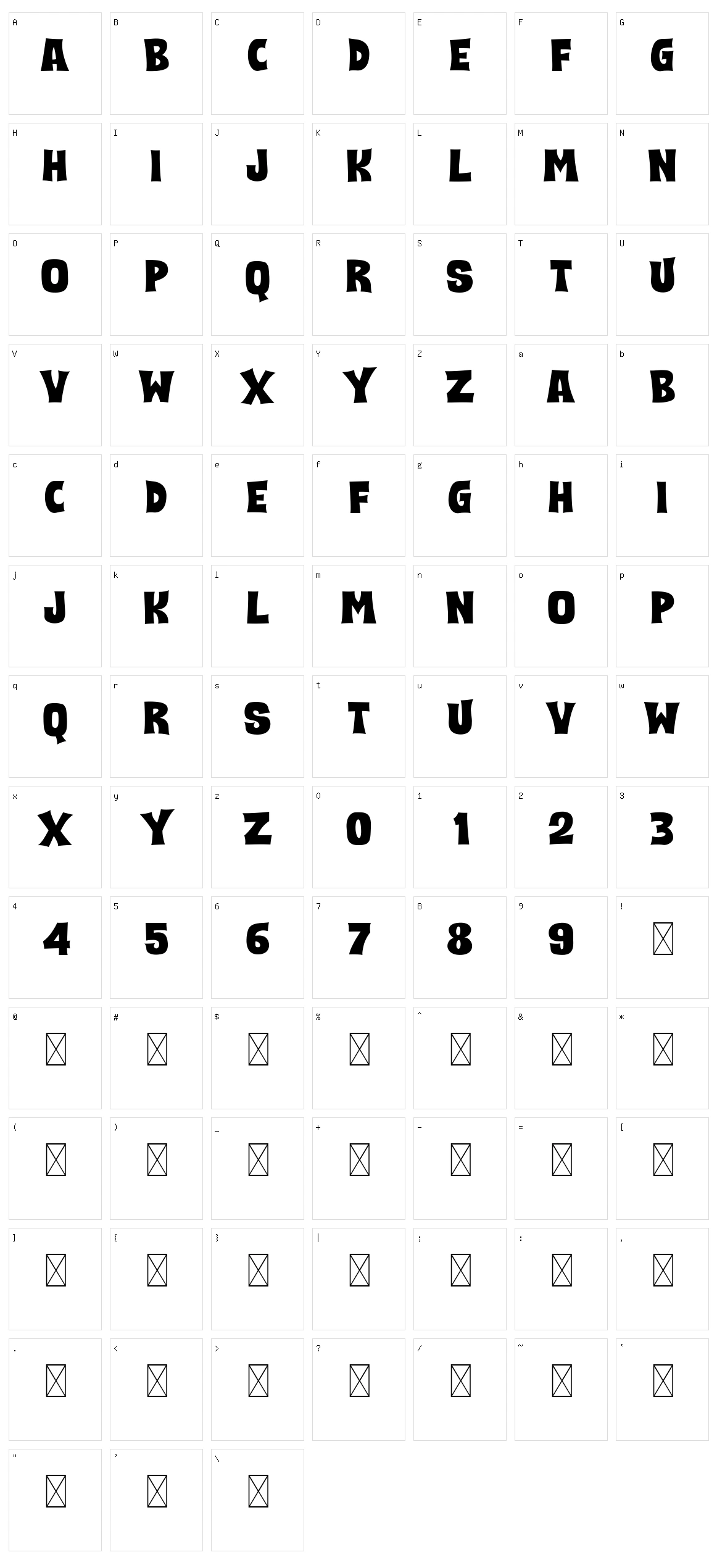
The free font Scary And Spicy is carefully designed by Tokokoo Studio, showcasing a thoughtful balance of creativity and usability and falls under the Cartoon font style. When you download the ZIP file, it contains only 11.52 KB of font files, making it lightweight and quick to download. Please review the license details below to understand permitted usage and distribution rights. If license information is not available, we recommend using this font for personal projects only or contacting the author directly for commercial usage permissions.